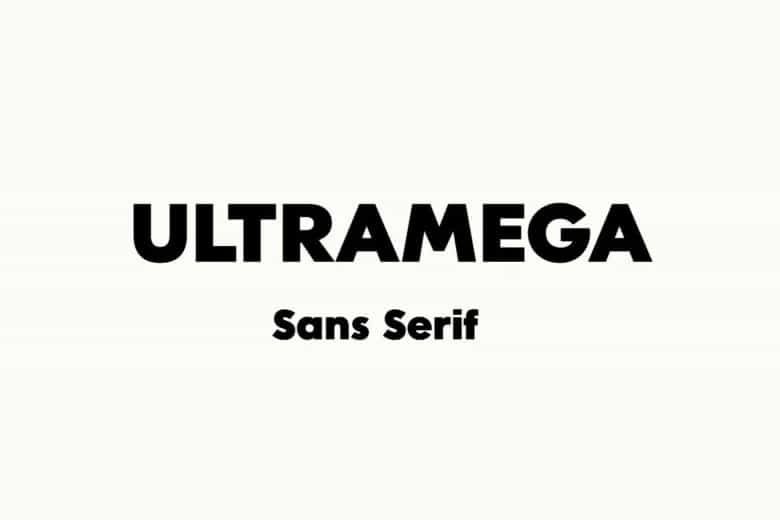
Ultramega is a new geometric sans serif typeface that’s been built for flexibility, suitable for all kinds of uses. The clean aesthetic and practical directness make it just as suitable for display purposes as intermediate length texts. Its versatility is due to its simplicity and open personality.